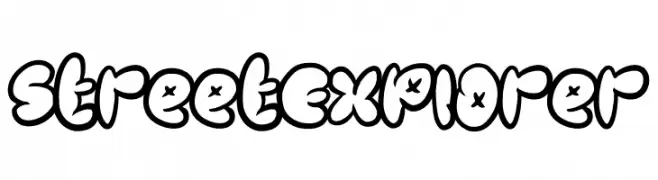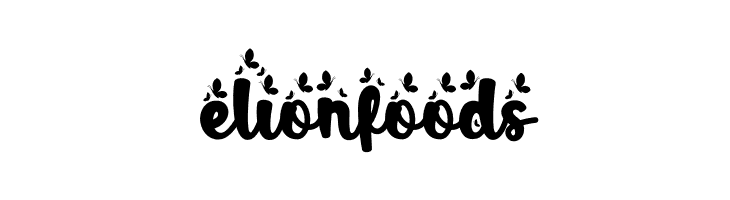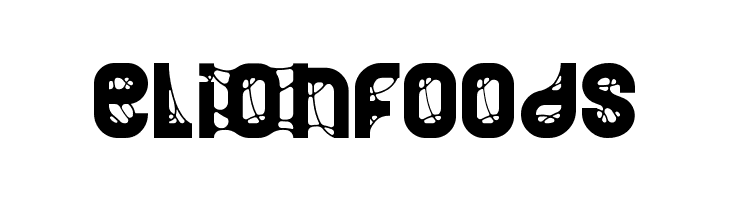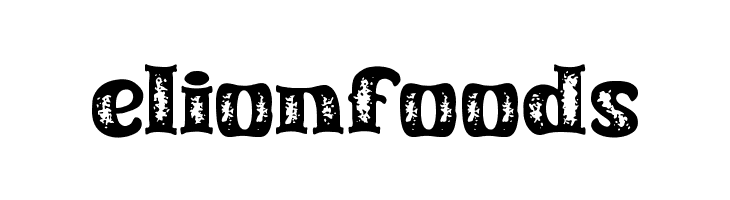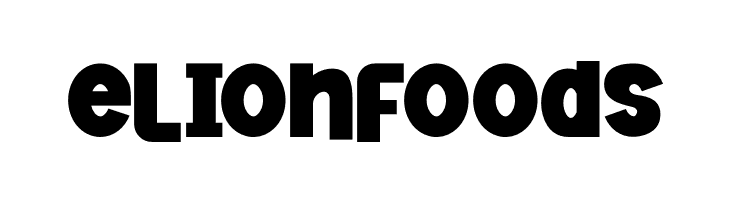
• Dunver
( Fonts by PutraCetol Studio )
A bold, high-contrast decorative font with unique curves and angles.
• COLORFUL CANDY DECORATED
( Fonts by PutraCetol Studio )
A playful, decorative font with candy-like patterns and bold outlines.
• Street Explorer
( Fonts by PutraCetol Studio )
A playful, bold font with bubble-like letters and star cutouts, perfect for creative projects.
• Musim Semi Segar
( Fonts by PutraCetol Studio )
A playful, floral-accented decorative font with bold, rounded characters.
• FreshSpring
( Fonts by PutraCetol Studio )
A playful, decorative font with leaf accents and a whimsical script style.
• NetHunt
( Fonts by PutraCetol Studio )
A bold, decorative font with web-like patterns, perfect for creative projects.
• Curly Keken Texture
( Fonts by PutraCetol Studio )
A bold, textured font with a distressed, vintage look and playful, curly style.
• Fanish Signature
( Fonts by PutraCetol Studio )
A sophisticated, elegant handwritten font with flowing cursive strokes and graceful curves.
• Jester Jumble Surprise
( Fonts by PutraCetol Studio )
A playful, jester-themed decorative font with bold, rounded characters.
• Jester Jumble
( Fonts by PutraCetol Studio )
A bold, playful font with chunky, whimsical characters.